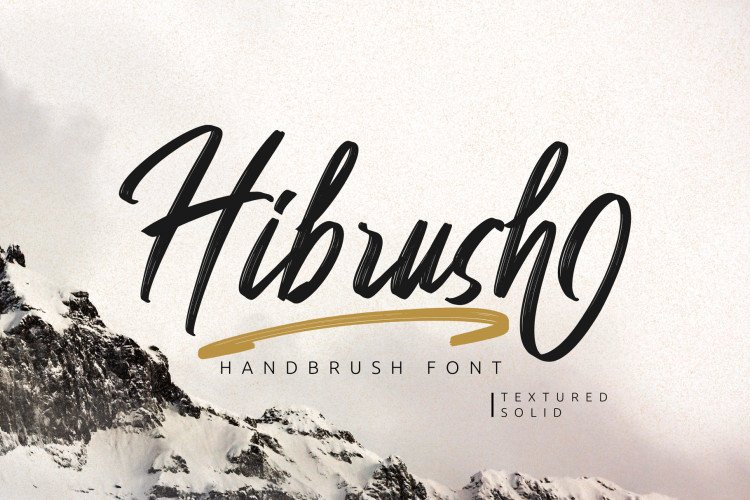
Hibrush Handbrush Font
Hibrush Handbrush Font! A brush font with 2 styles, regular (brush texture) and solid. Hibrush font is perfect for logos, apparel, T-shirt, Hoodie, product packaging, or anything else.